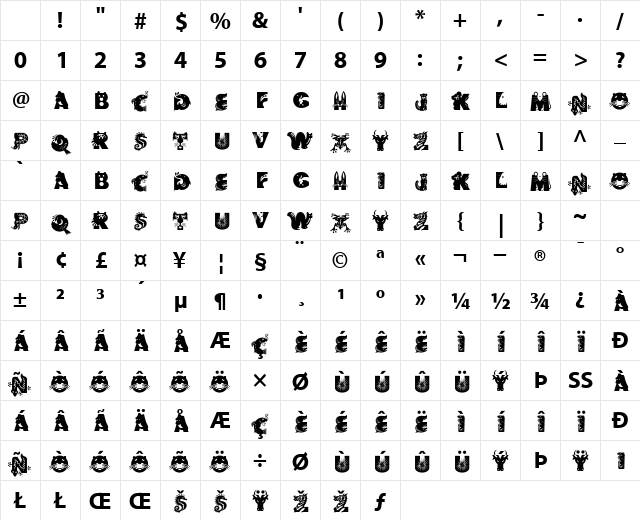
Complete Critter A glyph index. Displaying only characters natively supported by Critter A font.
Critter is a composed and adaptable typeface that performs quietly and consistently across a wide range of design contexts.